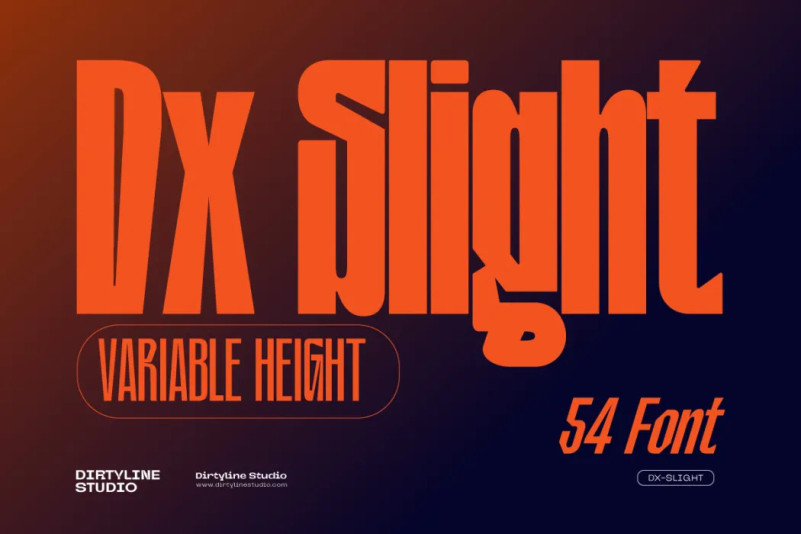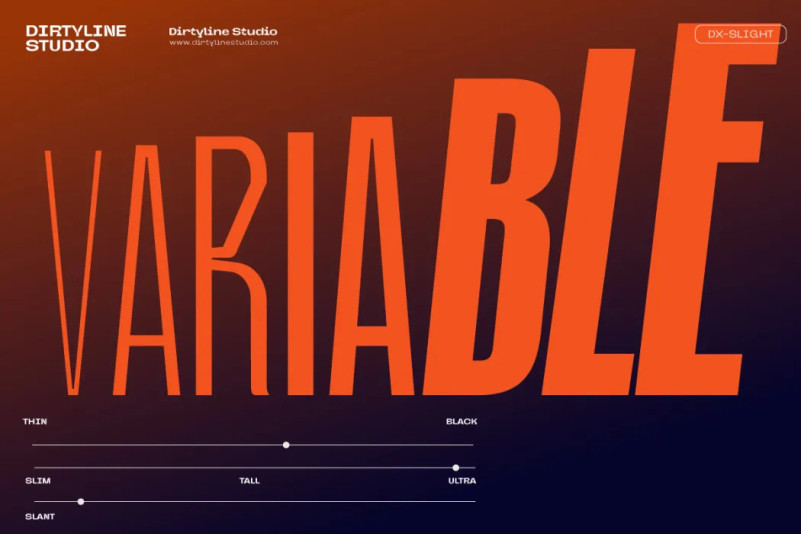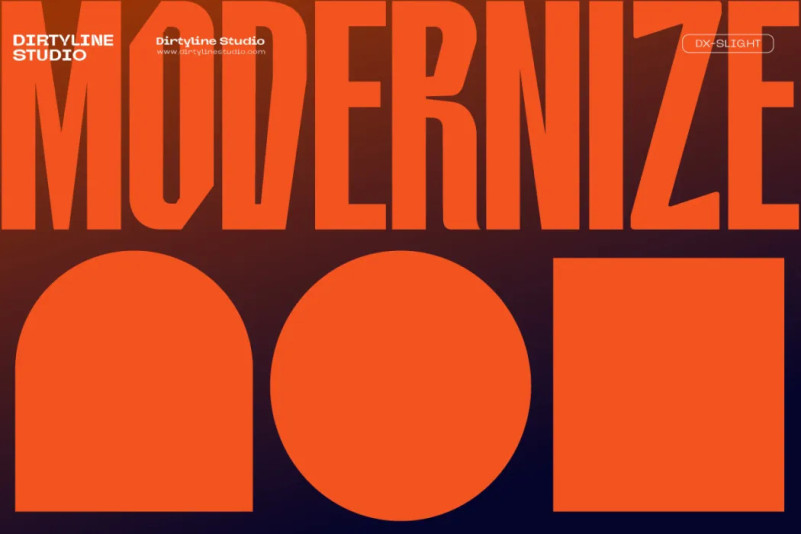
Dx Slight Font
Dx Slight Sans Serif Font Family, a new fresh & modern Sans with a Ultra Condensed style. The font it’s look good in posters, it is ideally suited for setting titles. However, the font has gained wide popularity among designers, and now you can find Dx Slight on the covers of magazines, on restaurant signs and on the main pages of websites.
Dx Slight Display Typeface is the part of a strong and modern display family. This typeface both impressive at display sizes and easily readable in text size, while the sharp shapes of the triangular sans and the distinctive letter shapes show their strength in logo design and impressive editorial use.
Dx Slight comes with elegant style, strength, and contrasts, with features an extended Latin character set of 366 glyphs covering over 88 languages. It has been designed as a variable font to give lots of options and access to unique type looks, however, it also includes nine weights, three axis H-height and Slant to give just as much access to creativity to those without access to variable supporting software. Its distinctive character and many variables make it a versatile, stylish workhorse, great for interfaces and design.